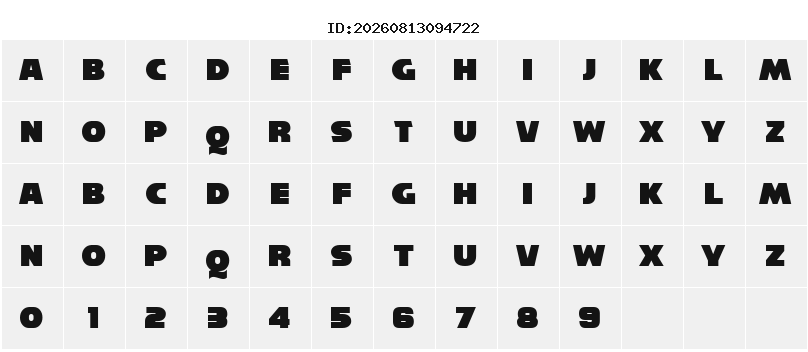
• Font Name: Reisenberg
About Reisenberg.otf
Reisenberg.otf is a modern, elegant sans-serif font designed for ultimate readability and visual harmony. Perfect for branding, headlines, web design, and print materials.